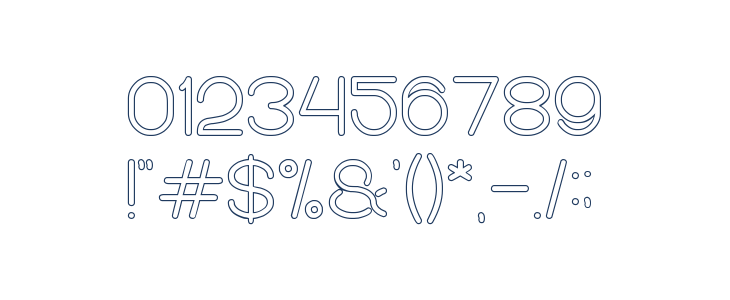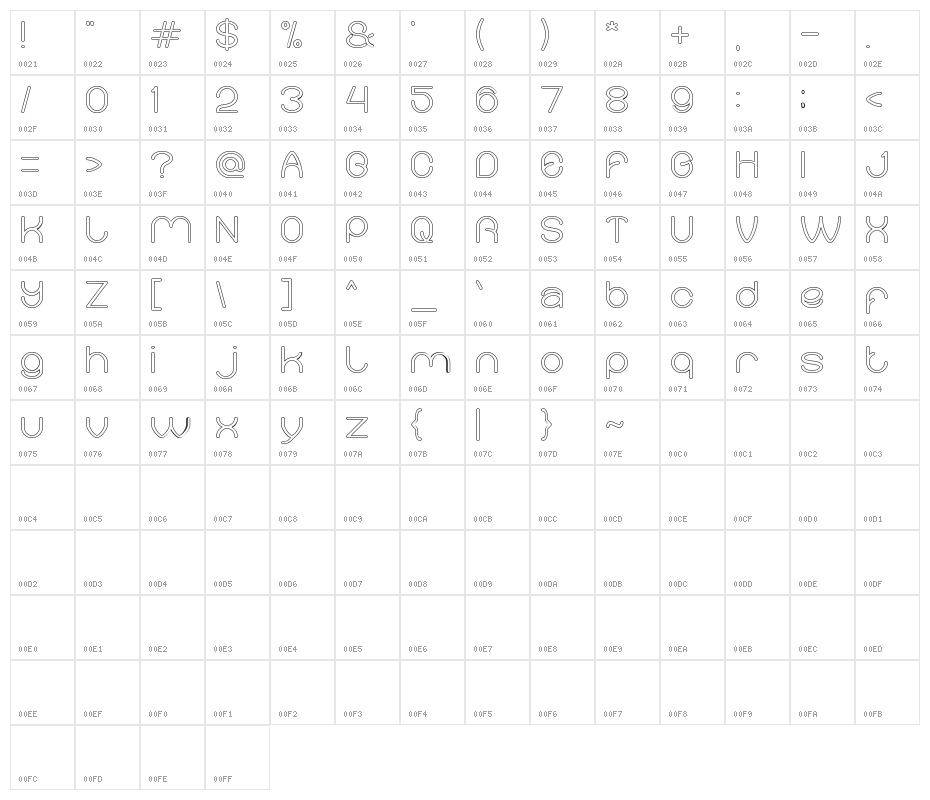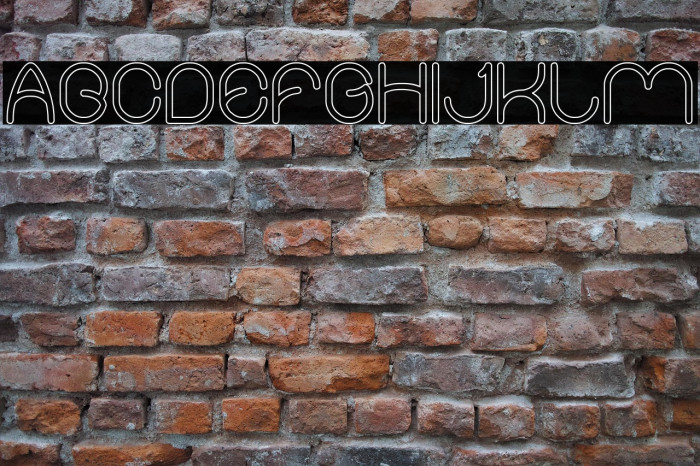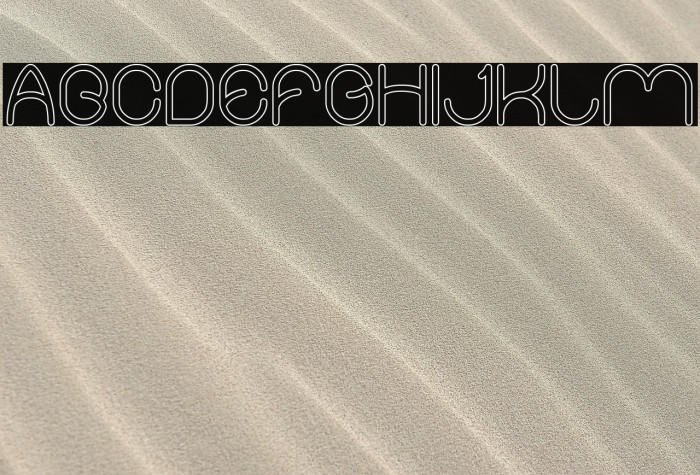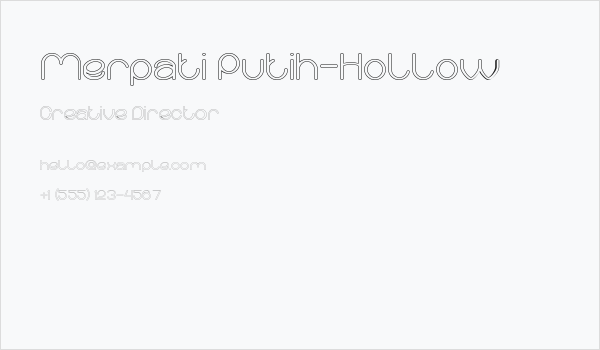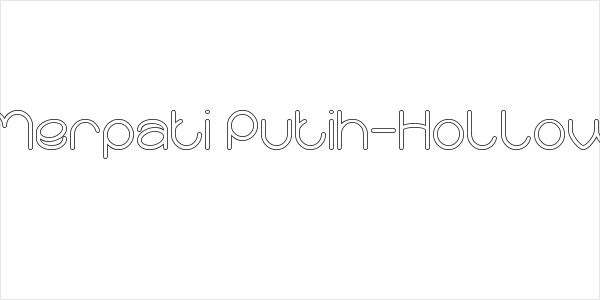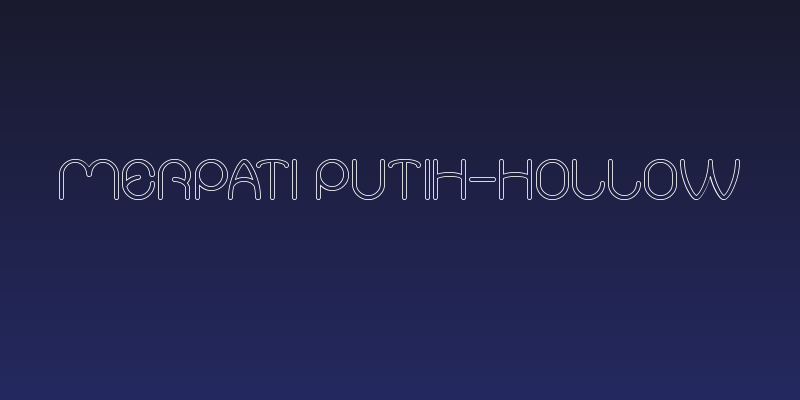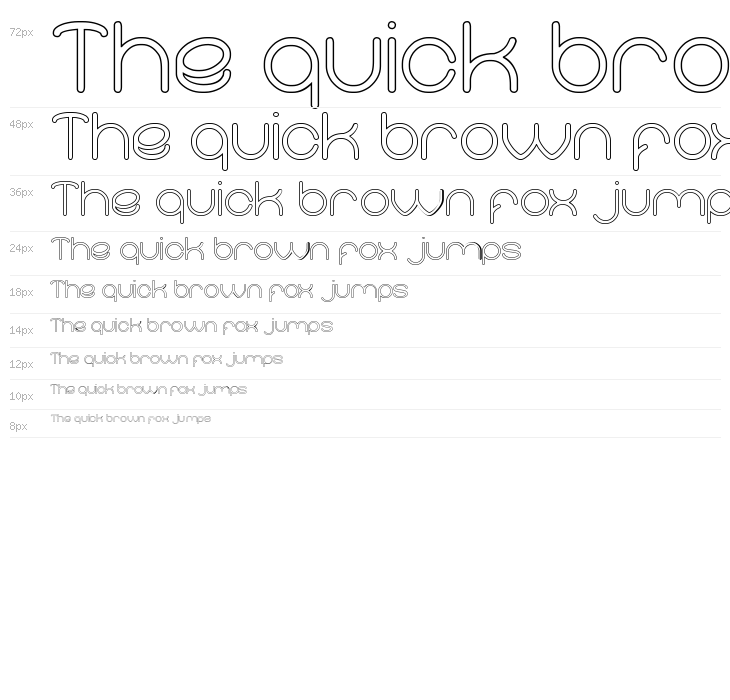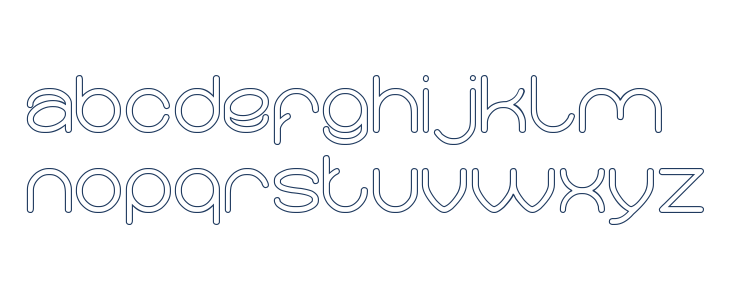
Merpati Putih-Hollow Font
Merpati Putih-Hollow Description
This font features a unique hollow design with rounded edges, giving it a modern and airy feel. The characters are outlined, creating a sense of openness and lightness. The uppercase and lowercase letters maintain a consistent style, with smooth curves and a uniform stroke width. The numerals and special characters follow the same design principles, ensuring a cohesive look across all elements. This font is particularly striking due to its minimalist yet bold appearance, making it suitable for creative and contemporary projects.
| Proposed Projects | Ideal for branding, posters, and digital media where a modern and airy aesthetic is desired. |